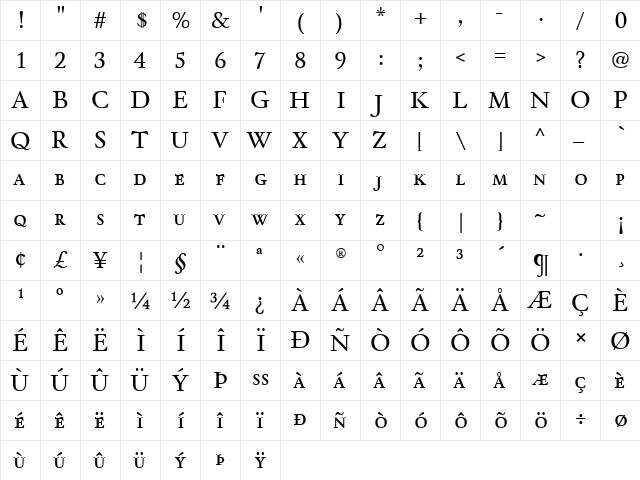
Winthorpe SmallCaps Regular
Design Context for Winthorpe Typeface
Winthorpe offers clean, dependable letterforms without strong stylistic allegiance, making it a practical choice for designers who need flexibility.
Pro Tip: Use Winthorpe in both headline and body roles to test its range before committing to a single application.